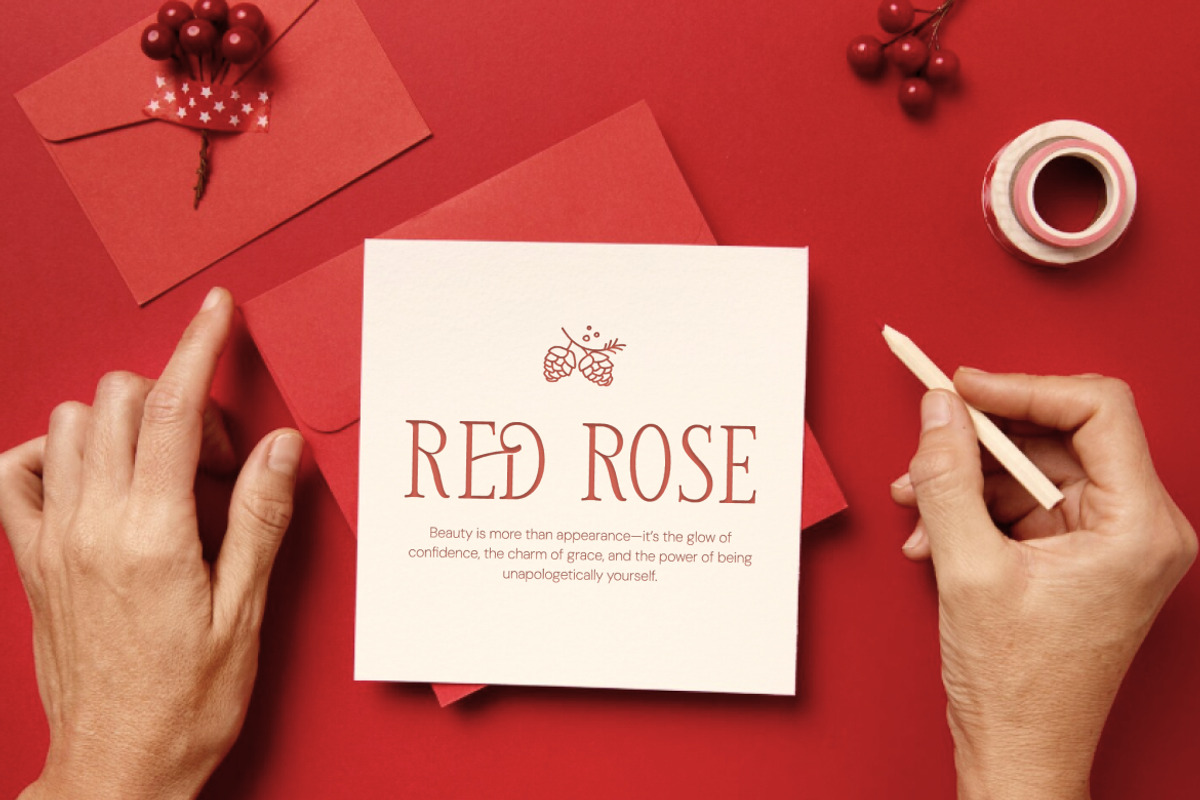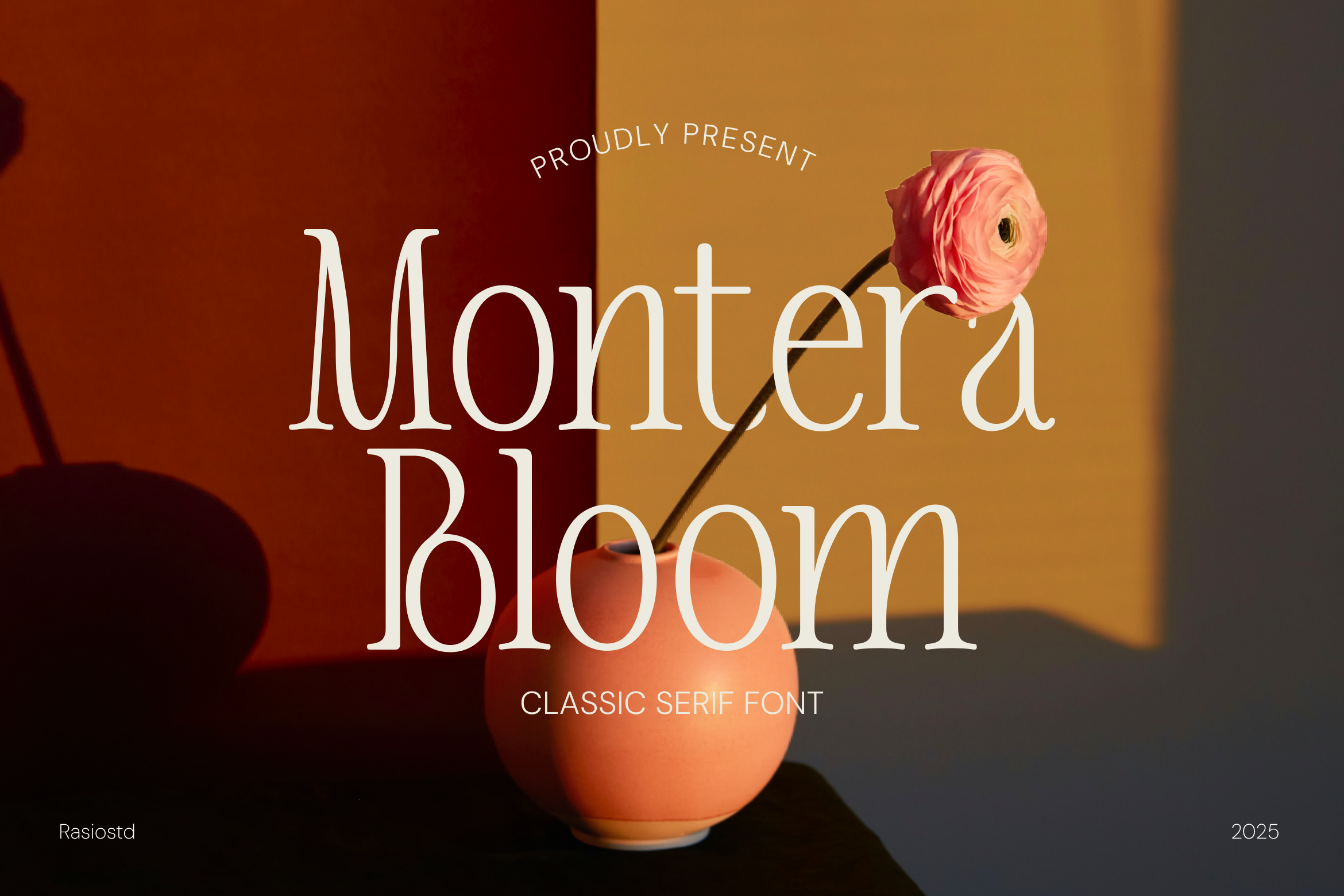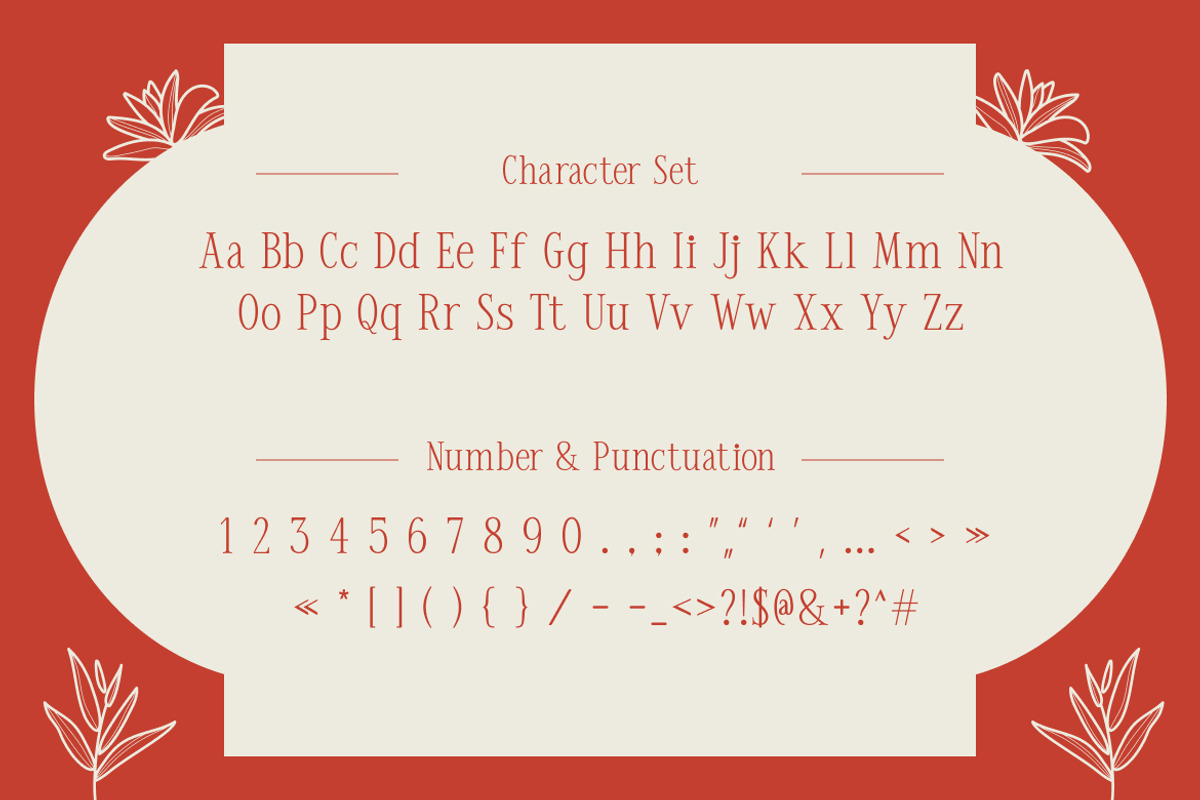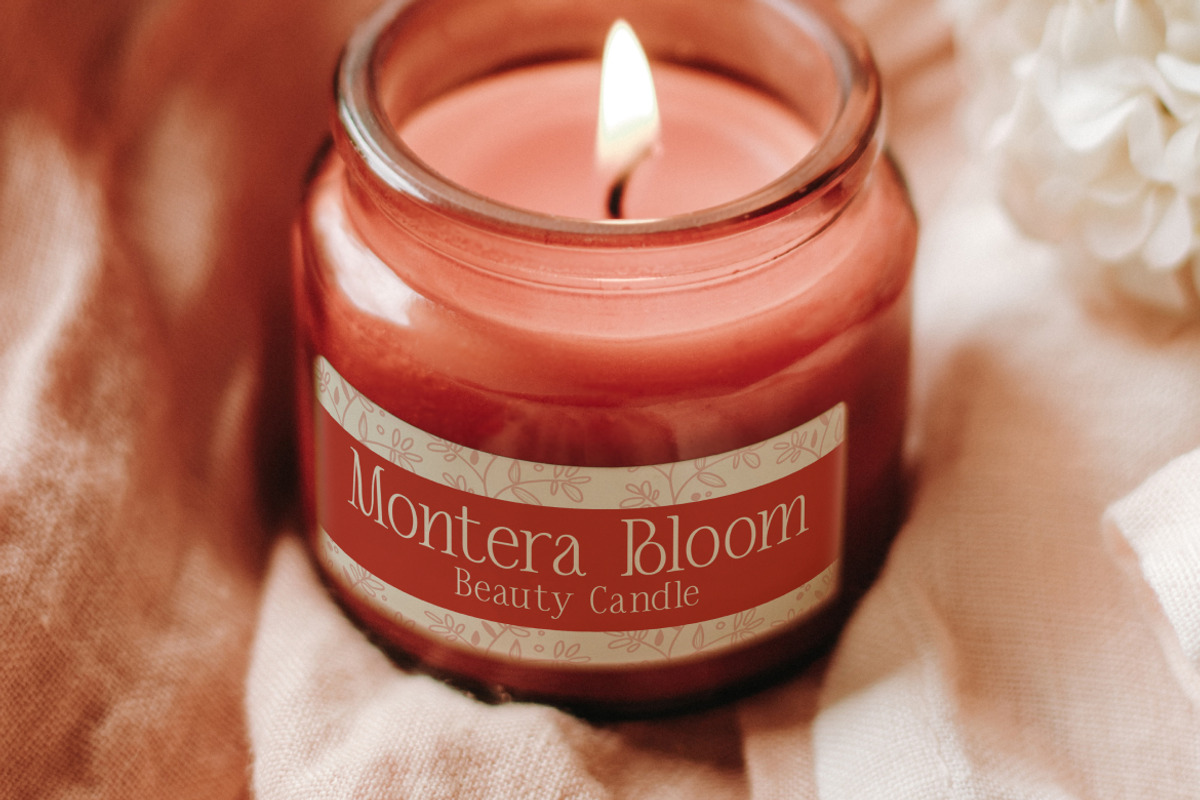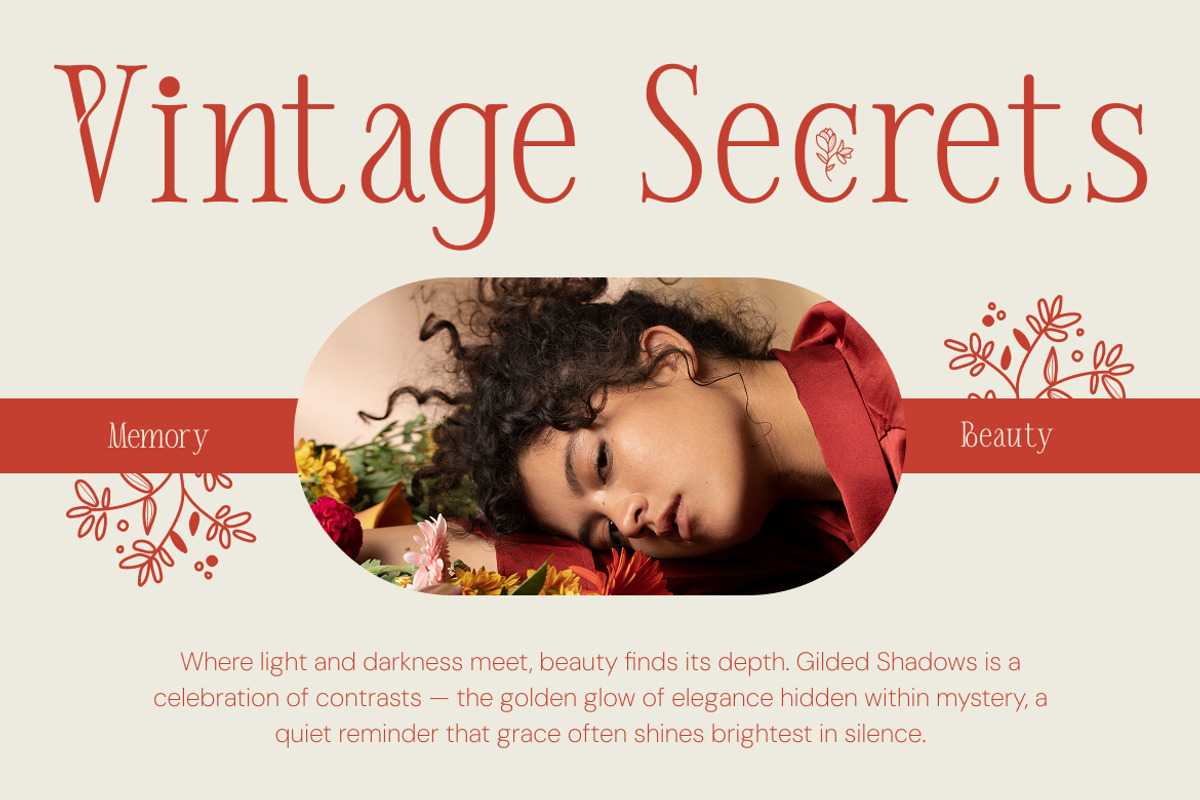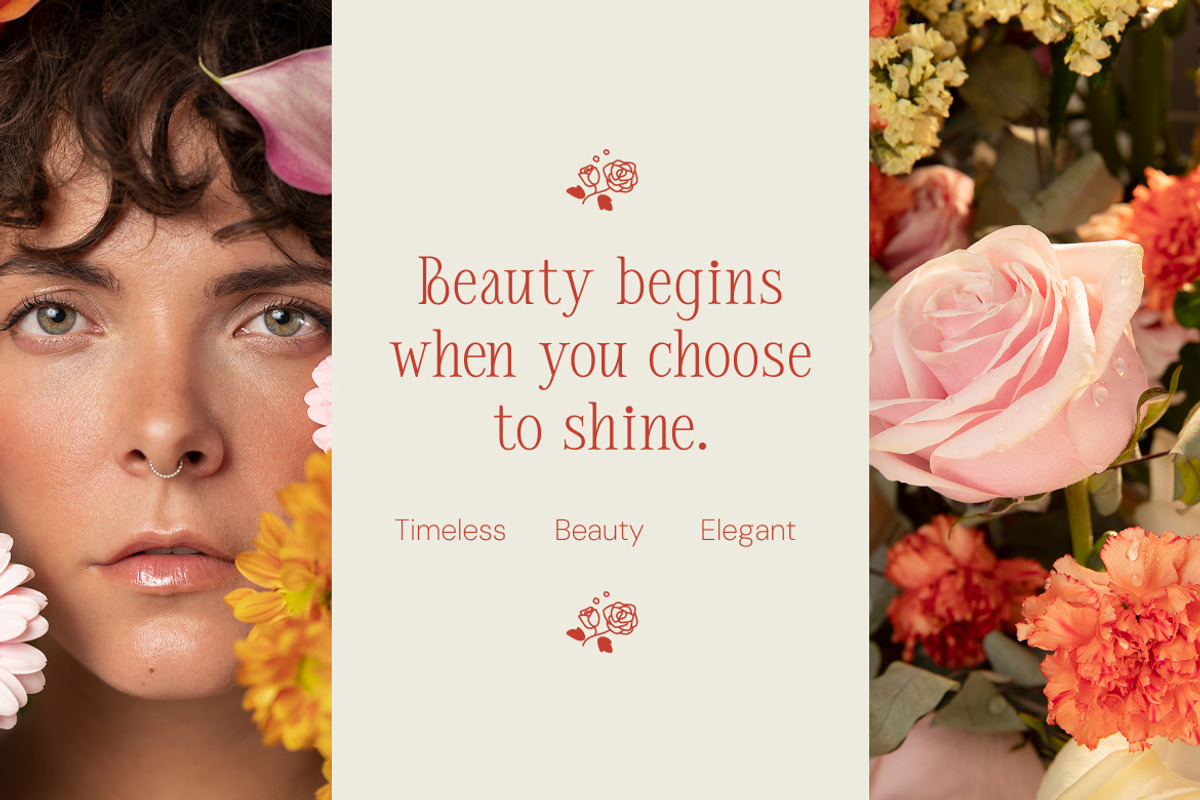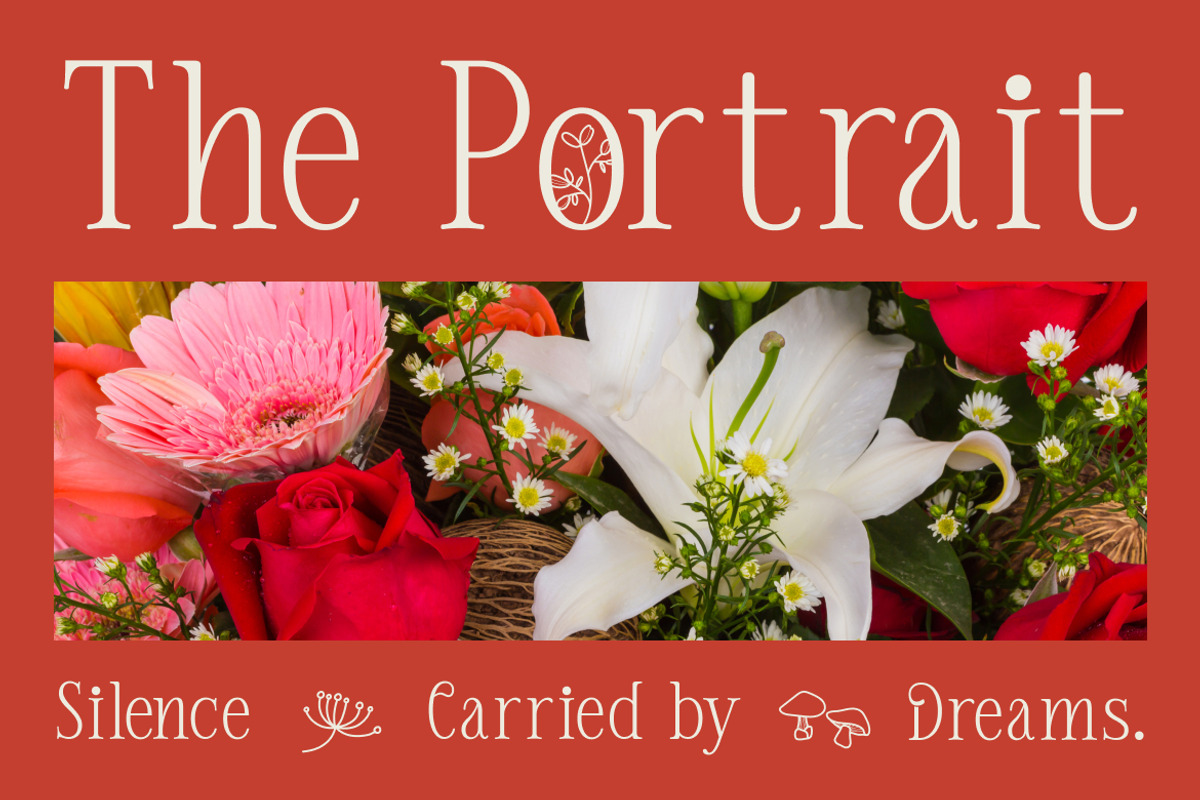
Montera Bloom Classic Serif Font
Montera Bloom is a classic serif typeface that blends timeless elegance with soft, refined character details. Designed with graceful curves, balanced proportions, and delicate serif forms, it delivers a romantic yet sophisticated presence for display typography. The font includes uppercase, lowercase, numerals, punctuation, and decorative alternates inspired by subtle botanical elements.
Montera Bloom is ideal for luxury branding, fashion editorials, beauty packaging, wedding stationery, boutique logos, and refined headline designs. Its classic serif structure paired with subtle decorative charm makes it perfect for projects that require sophistication, romance, and timeless visual appeal across print and digital media.
- Classic serif construction with refined, timeless proportions
- Soft curves and delicate serifs for an elegant, graceful appearance
- Subtle contrast between thick and thin strokes for a sophisticated feel
- Clean terminals and balanced shapes for smooth readability
- Spacious kerning and harmony suited for headlines, editorials, and luxury layouts
- Luxury brand identities and boutique logos
- Fashion editorials and magazine headlines
- Beauty, skincare, and cosmetic packaging design
- Wedding invitations and elegant stationery
- Social media visuals and marketing materials